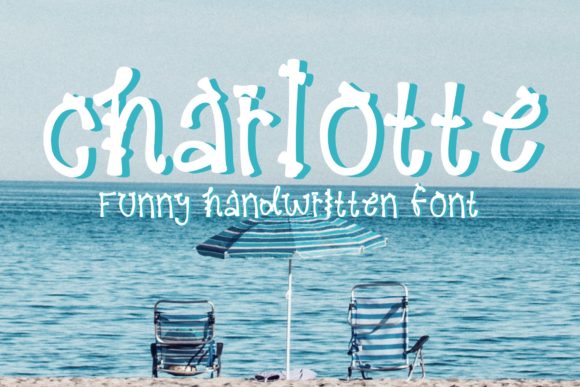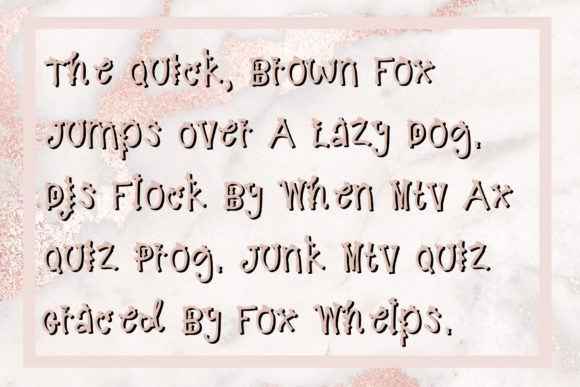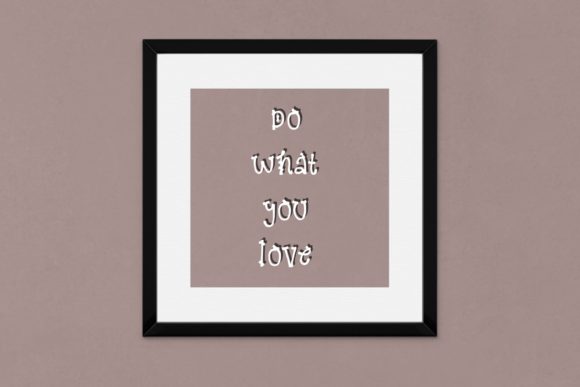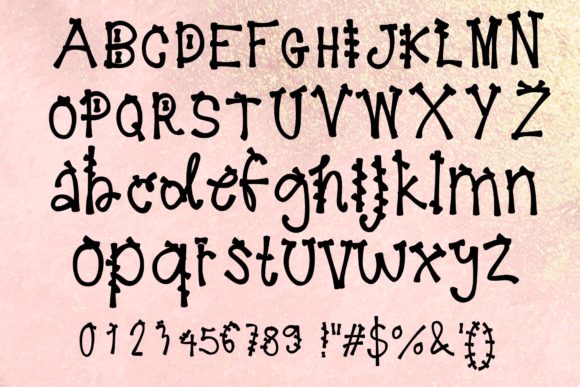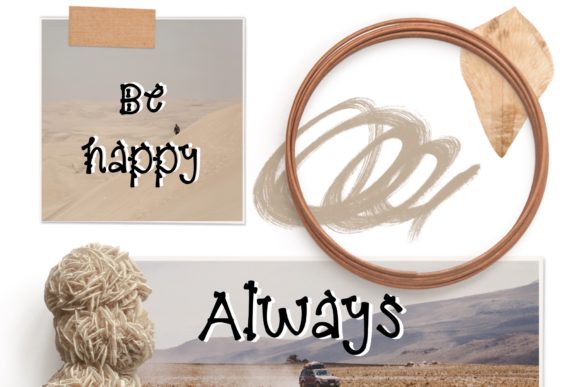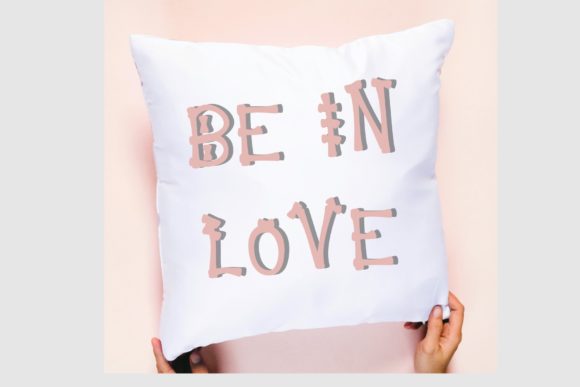
Charlotte Font
About Charlotte Font
Charlotte is a cute and quirky handwritten font. Its natural and unique style makes it incredibly fitting to a large pool of designs. The only limit is your imagination!